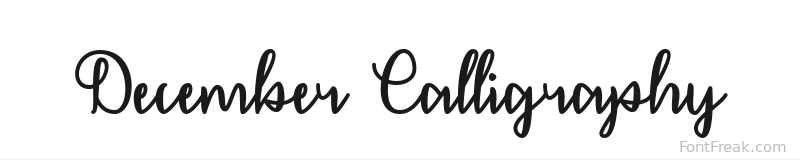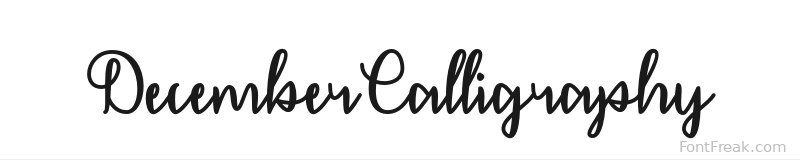
December Calligraphy
DecemberCalligraphy
December Calligraphy is a stunning script font designed by Misti Hammers, making it a perfect choice for those seeking elegance and grace in their typography. This font stands out in the handwritten category, showcasing a beautiful blend of fluid strokes and artistic flair. The design features a delicate stroke weight with moderate contrast, creating a sophisticated and stylish appearance. The spacing between letters is thoughtfully arranged, allowing for optimal readability while maintaining an artistic feel, complemented by subtle decorative elements that enhance its overall charm.
This font is ideal for a variety of creative applications. It shines in the realm of wedding invitations, where its romantic style can set the perfect tone for special occasions. Additionally, December Calligraphy works wonderfully for greeting cards, allowing heartfelt messages to be presented with elegance. Small business owners can utilize this font for branding purposes, particularly in niches like artisanal products or boutique shops, where a personal touch is essential. Content creators will also find it suitable for social media graphics, where eye-catching typography can significantly elevate visual storytelling.
What truly sets December Calligraphy apart is its unique ability to convey emotion through typography. Its elegant lines and flowing movements evoke a sense of warmth and creativity, making it a fantastic choice for anyone looking to add a personal touch to their designs. Whether for formal events or casual projects, this font is sure to impress.